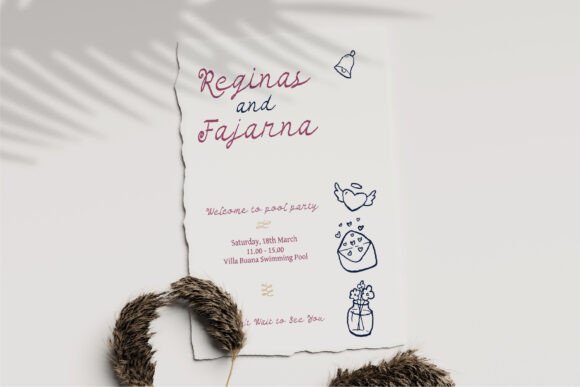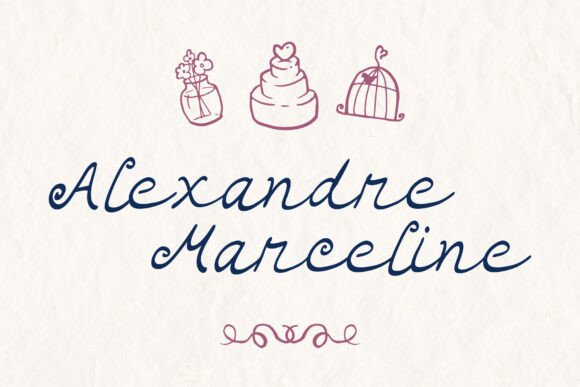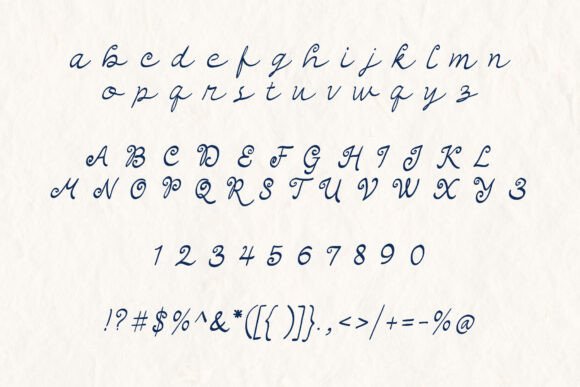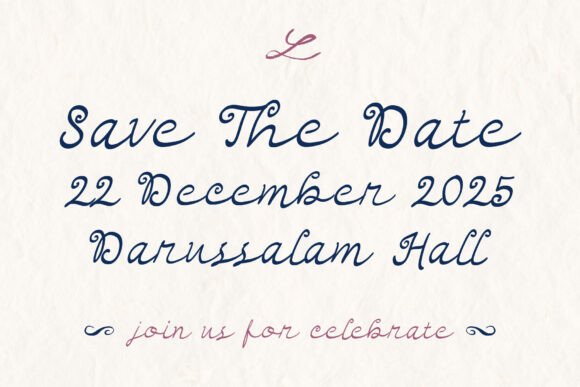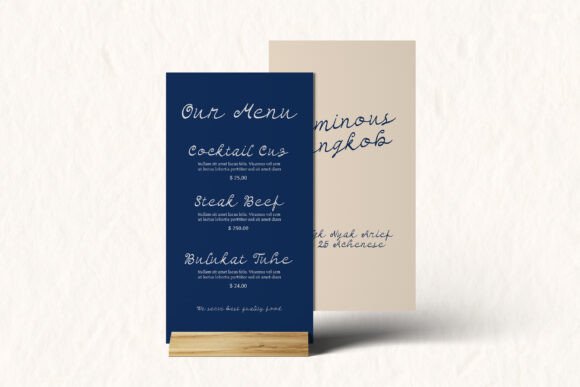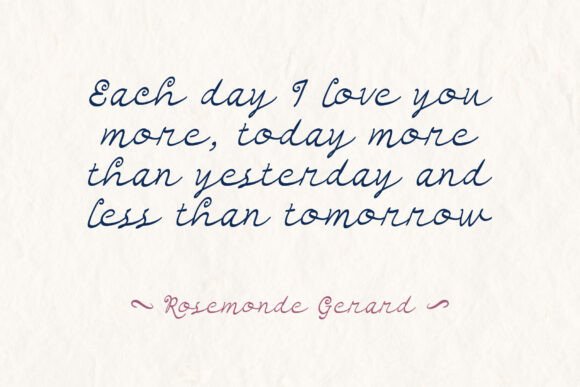
Introduction to Kerilla Font
Kerilla – A Charming Handwritten Script Font Introducing Kerilla, a beautifully crafted handwritten script font that exudes elegance and warmth.
Designed with smooth curves and a natural flow, Kerilla captures the essence of handwritten charm, making it perfect for a variety of creative projects ✨ Perfect for: ✔ Wedding Invitations & Stationery ✔ Branding & Logos ✔ Social Media Graphics ✔ Greeting Cards & Quotes ✔ Editorial & Packaging Design Kerilla’s delicate yet confident strokes give your designs a sophisticated and personal touch.
Key Features of Kerilla Font
Why Choose Kerilla Font?
Kerilla Font offers exceptional quality and versatility, making it a valuable addition to your design toolkit. Whether you’re creating for personal projects or commercial use, Kerilla Font delivers professional results.